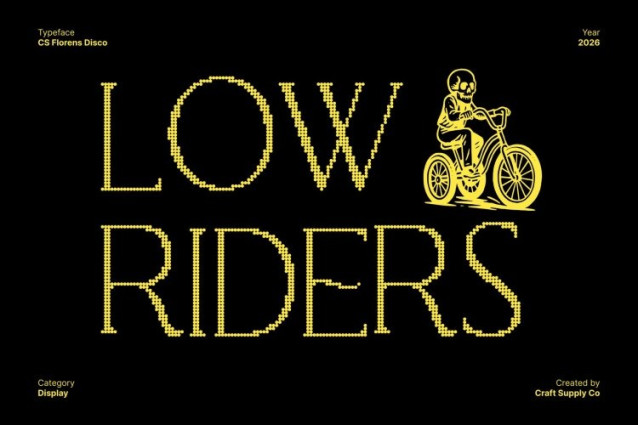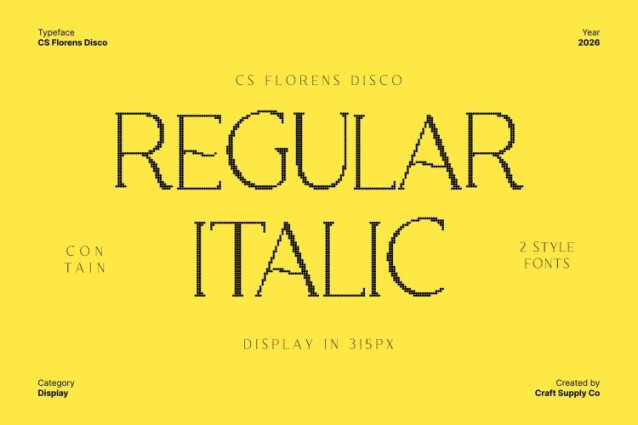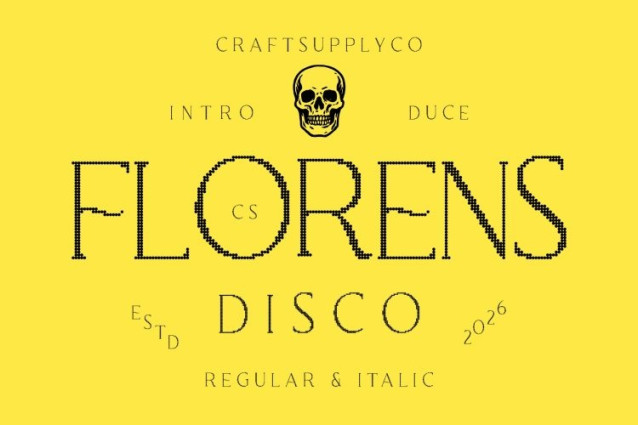
CS Florens Disco Font
CS Florens Disco Font This is an elegant serif font crafted to express refinement, luxury, and visual clarity. Its smooth curves and precisely defined letterforms create a graceful rhythm, giving every word a polished and distinguished presence. Enhanced with a subtle disco influence, the font feels radiant and expressive while maintaining a high-end, timeless character.
Geometric Precision with Harmonious Balance
Built on a foundation of refined geometry, this font delivers excellent compositional balance and visual harmony. Its well-proportioned structures ensure elegance across layouts, allowing the typeface to perform beautifully in both large display settings and detailed typographic compositions.
Timeless Luxury with Modern Versatility
This font blends classic serif elegance with modern precision, making it highly adaptable for premium applications. It works seamlessly across editorial design, branding, packaging, fashion visuals, and luxury products offering a look that feels enduring yet contemporary.
Perfect for Dignified, Glamorous Design
Ideal for magazines, high-end branding, sophisticated advertising, and refined visual identities, this font delivers a confident and luxurious presence. Its elegant curves, structured geometry, and subtle disco glow make a perfect choice for designers seeking beauty, clarity, and lasting style with a touch of modern glamour.
Enhanced with a subtle disco influence, the font feels radiant and expressive while maintaining a high-end, timeless character.
Geometric Precision with Harmonious Balance
Built on a foundation of refined geometry, this font delivers excellent compositional balance and visual harmony. Its well-proportioned structures ensure elegance across layouts, allowing the typeface to perform beautifully in both large display settings and detailed typographic compositions.
Timeless Luxury with Modern Versatility
This font blends classic serif elegance with modern precision, making it highly adaptable for premium applications. It works seamlessly across editorial design, branding, packaging, fashion visuals, and luxury products offering a look that feels enduring yet contemporary.
Perfect for Dignified, Glamorous Design
Ideal for magazines, high-end branding, sophisticated advertising, and refined visual identities, this font delivers a confident and luxurious presence. Its elegant curves, structured geometry, and subtle disco glow make a perfect choice for designers seeking beauty, clarity, and lasting style with a touch of modern glamour.